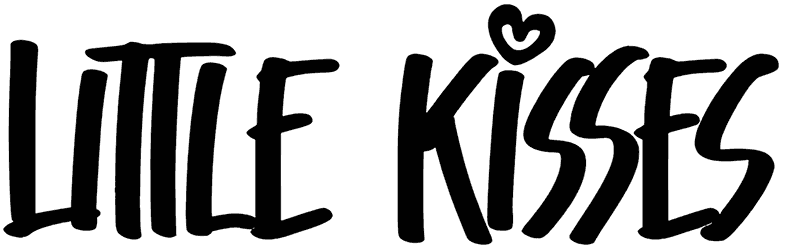
Little Kisses Font
Would you like to show your upcoming design with modern and realistic manuscript words? This item, which is called Little Kisses, is a captivating and minimal choice that can harmonize with various ideas. This heart font doesn’t cover lowercase letters and some numbers, but it can remain a nice option for a lot of projects like posters, branding, packaging, and so on.